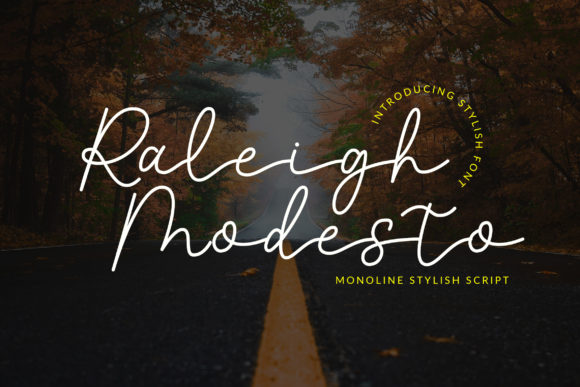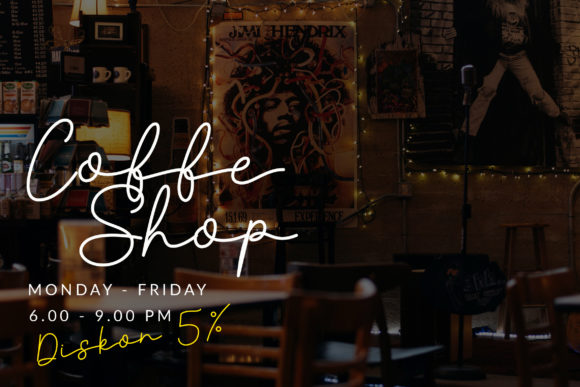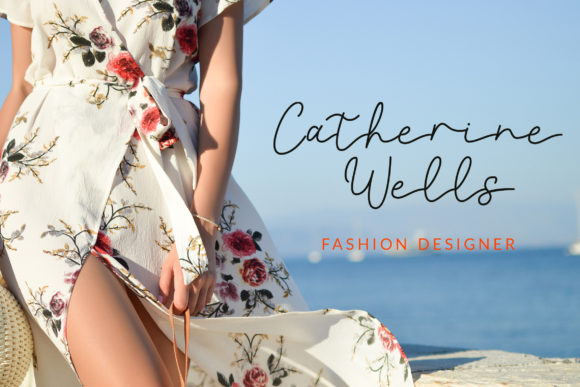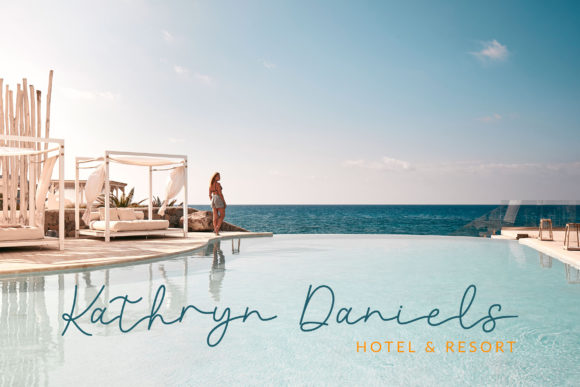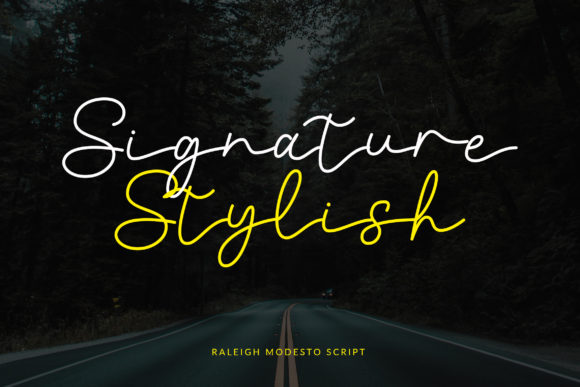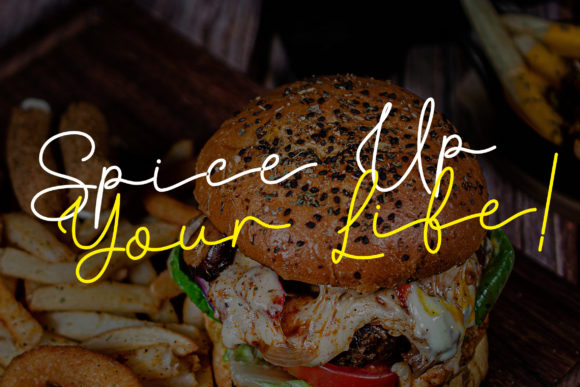
Raleigh Modesto Font
About Raleigh Modesto Font
Raleigh Modesto is a monoline font that has a unique and gorgeous style. It will elevate a wide range of design projects to the highest level, be it branding, headings, wedding designs, invitations, signatures, logos, labels, and much more!